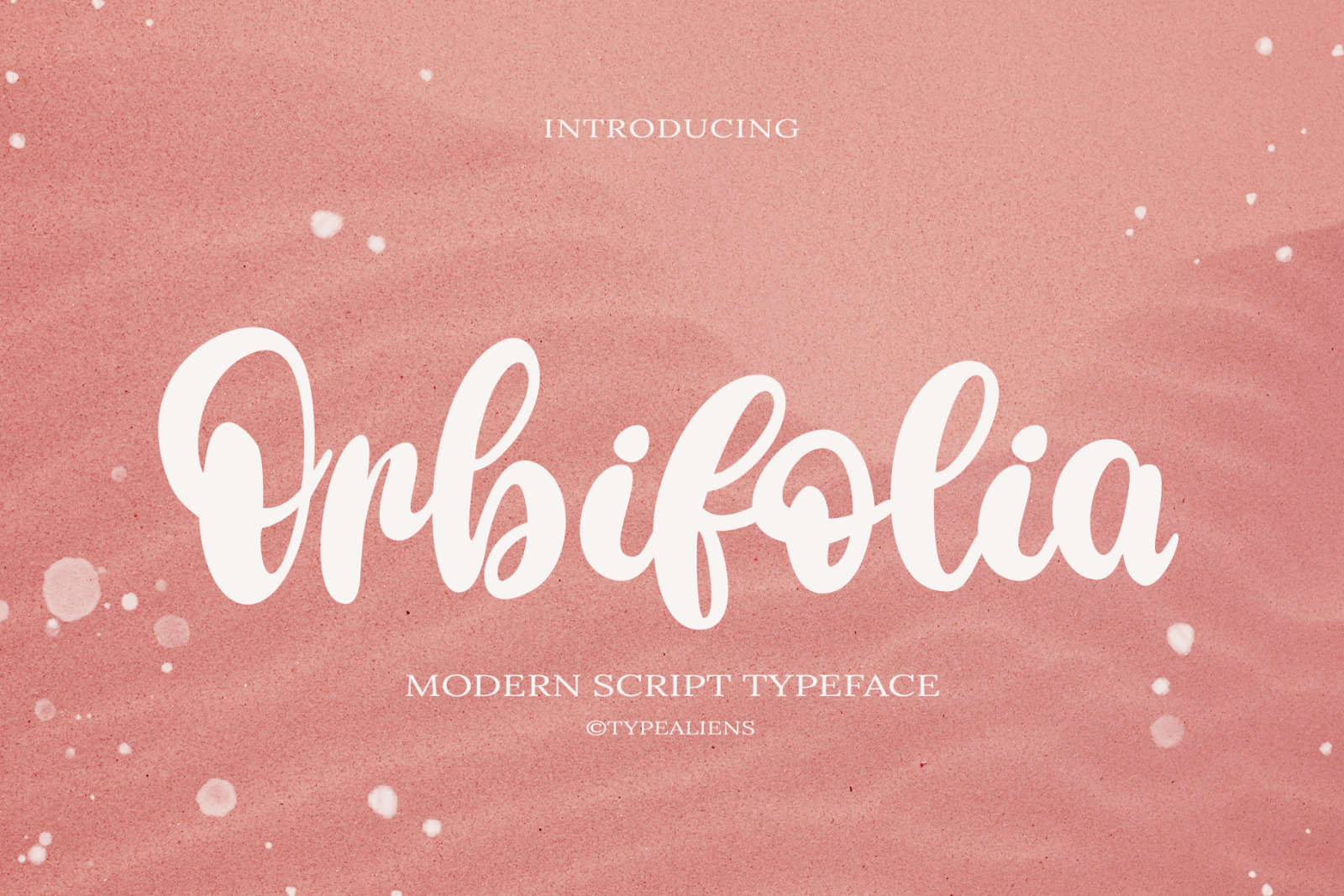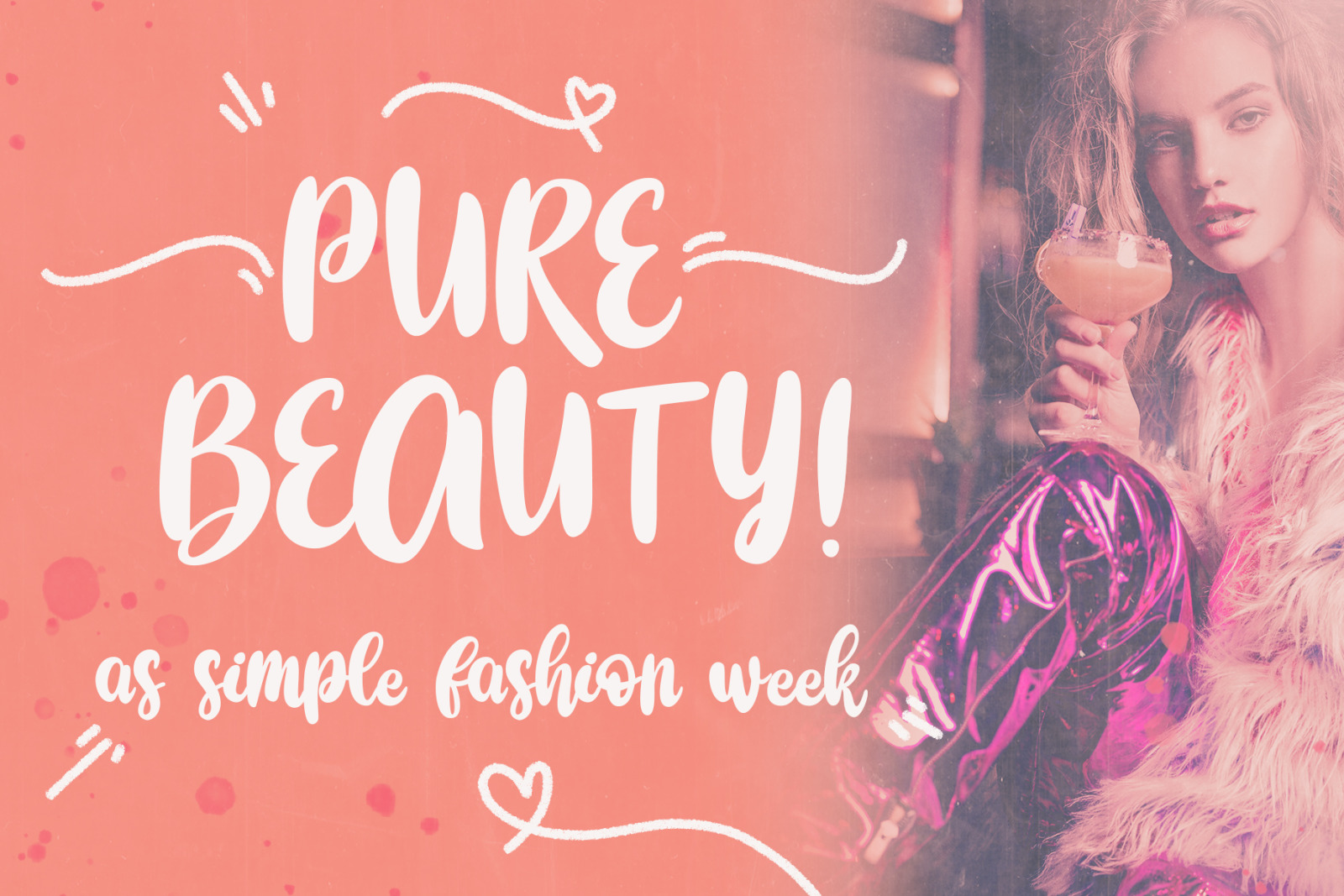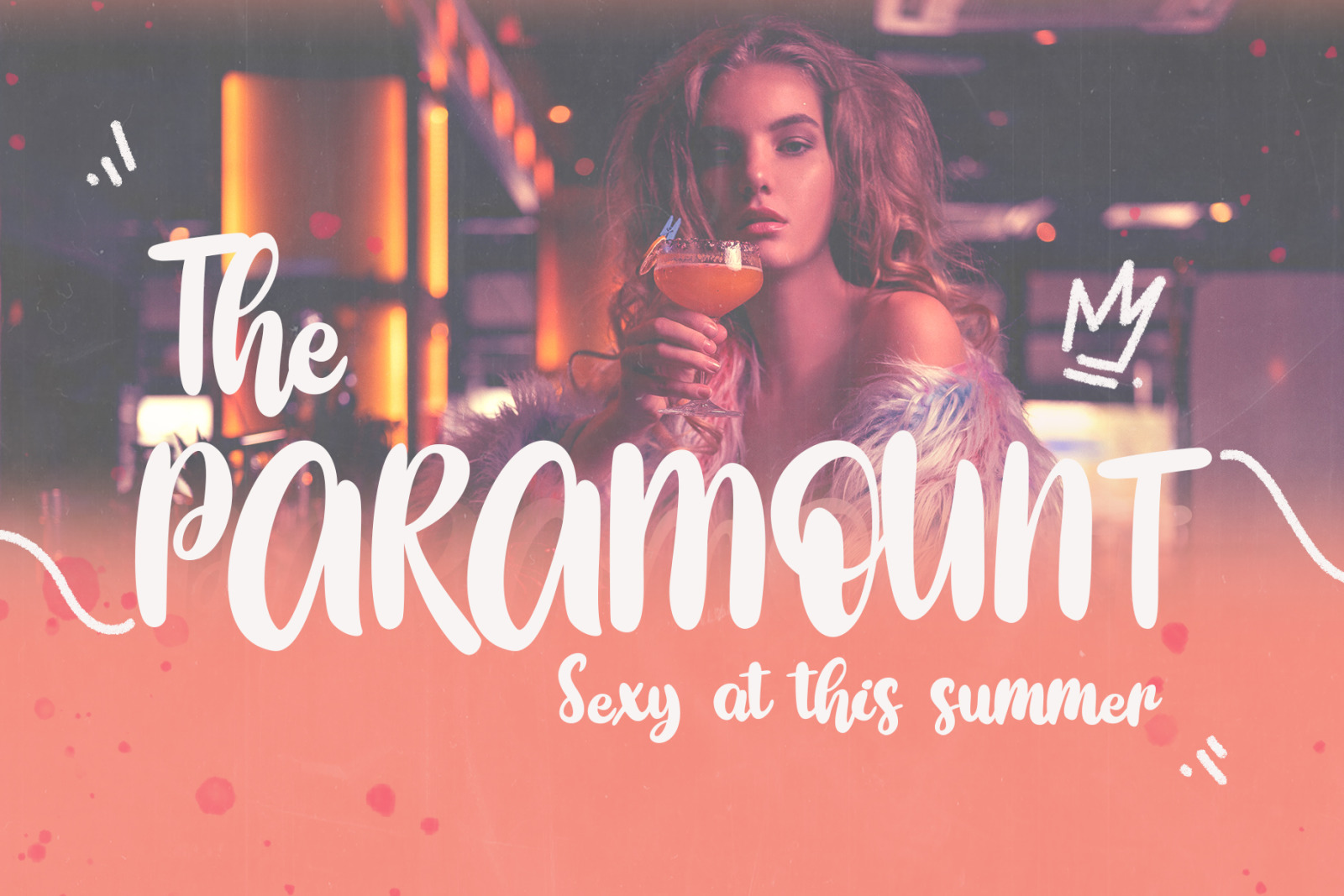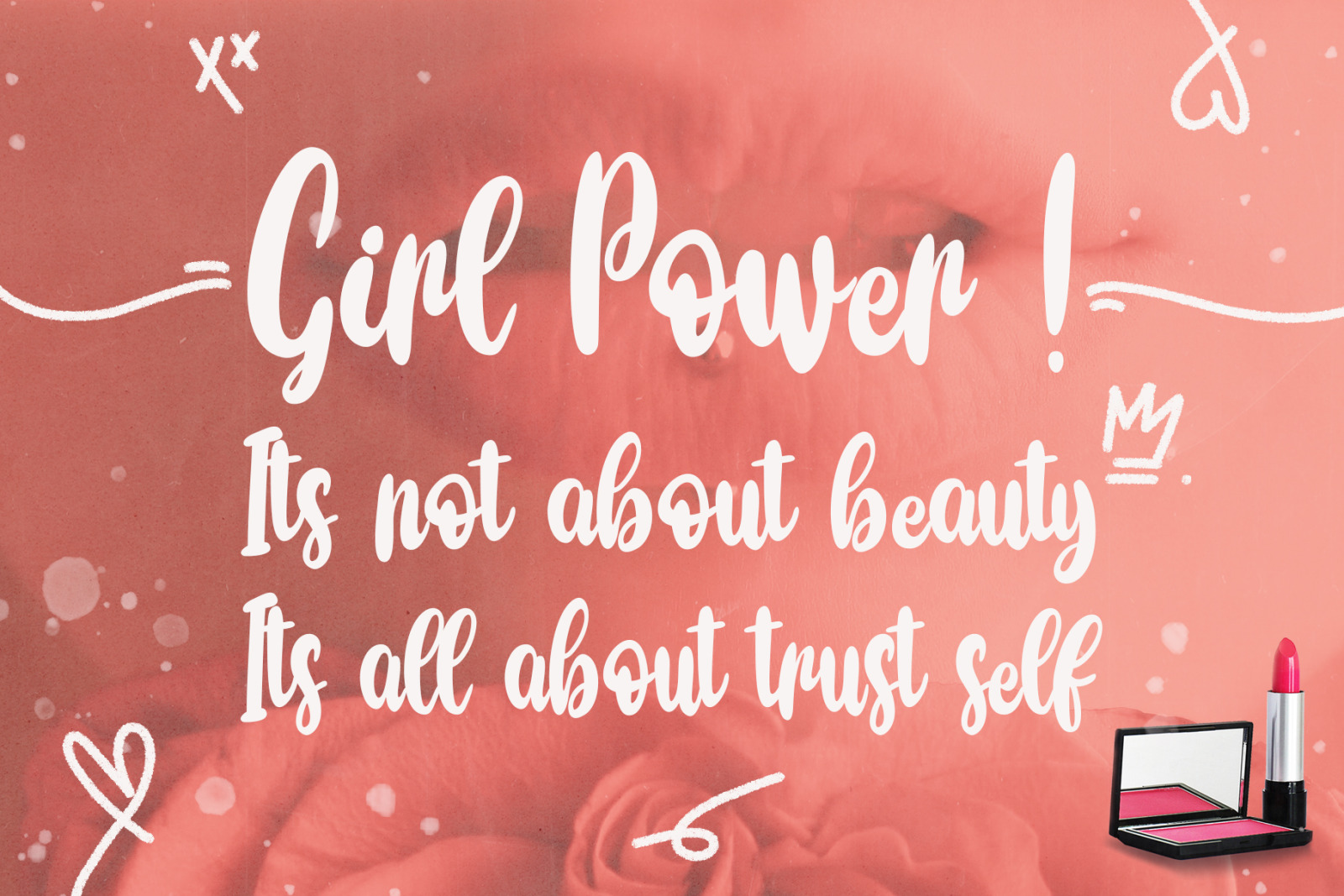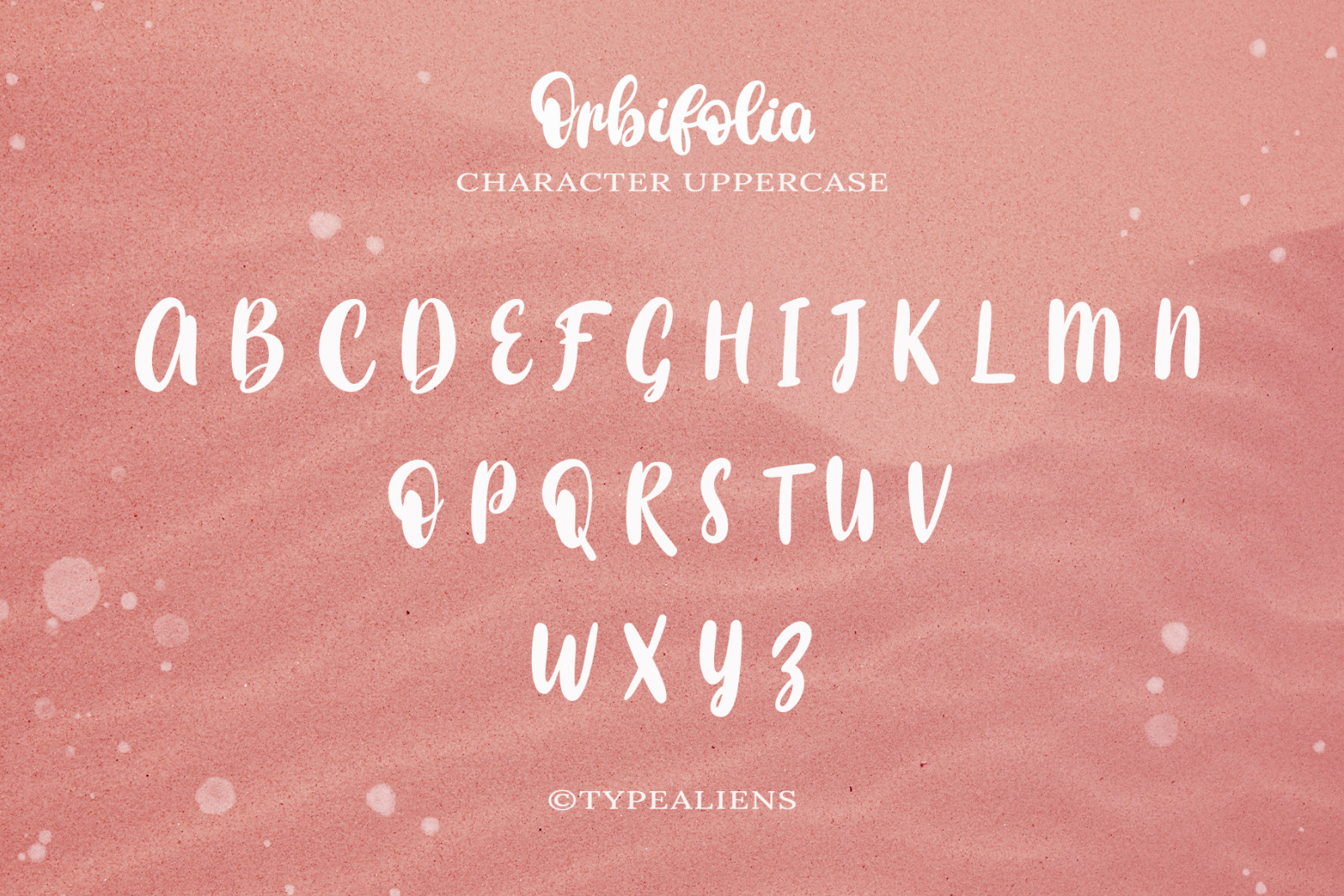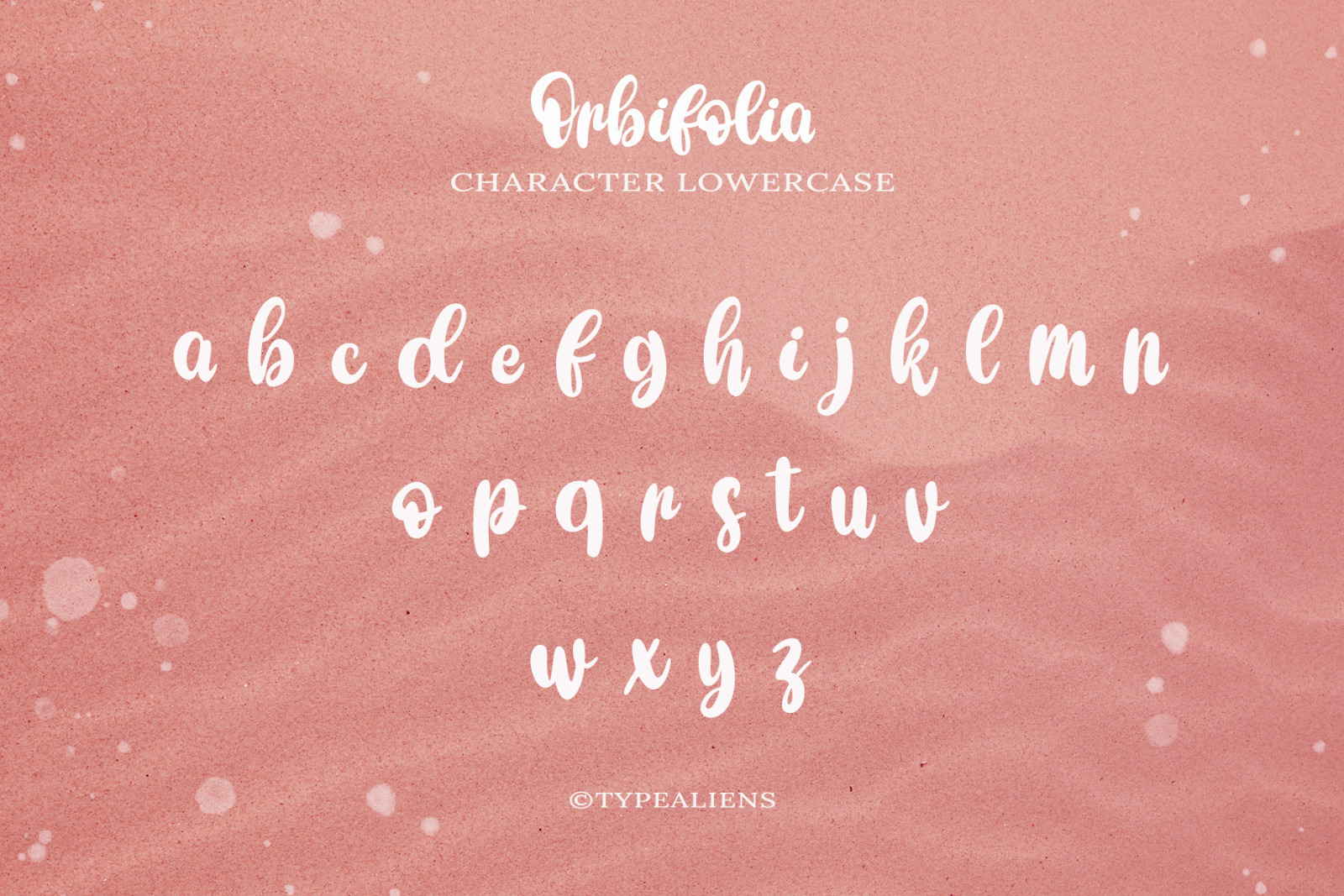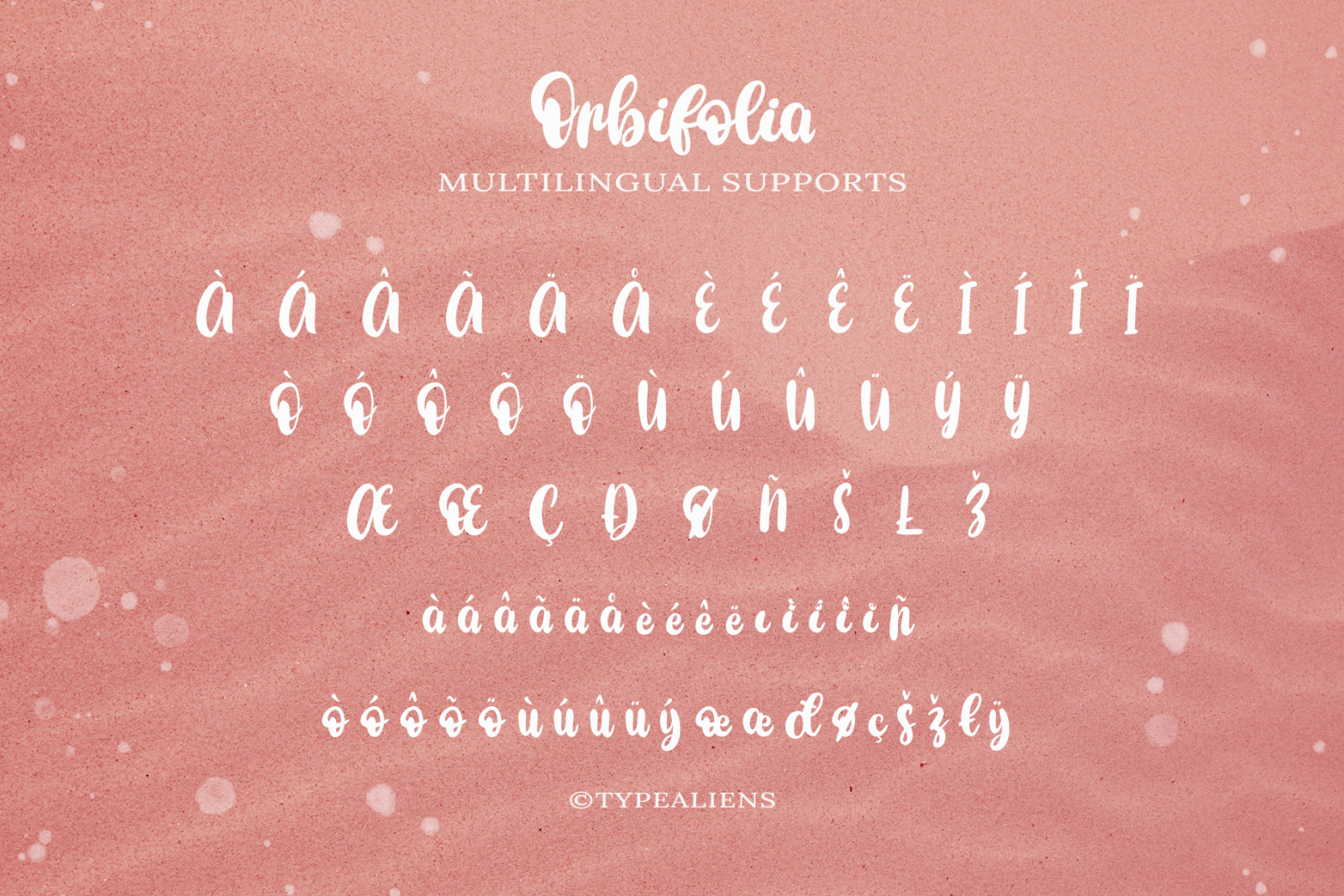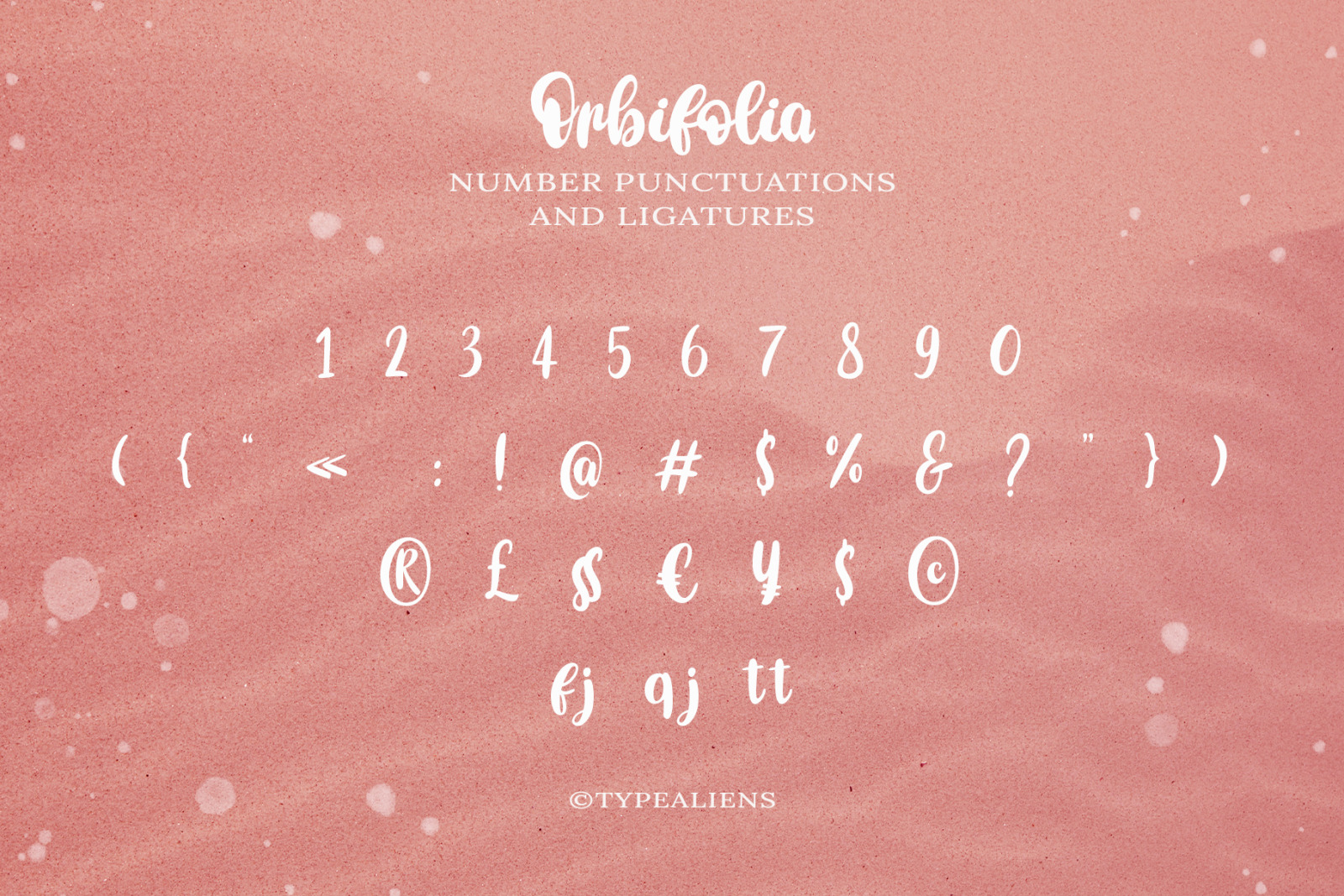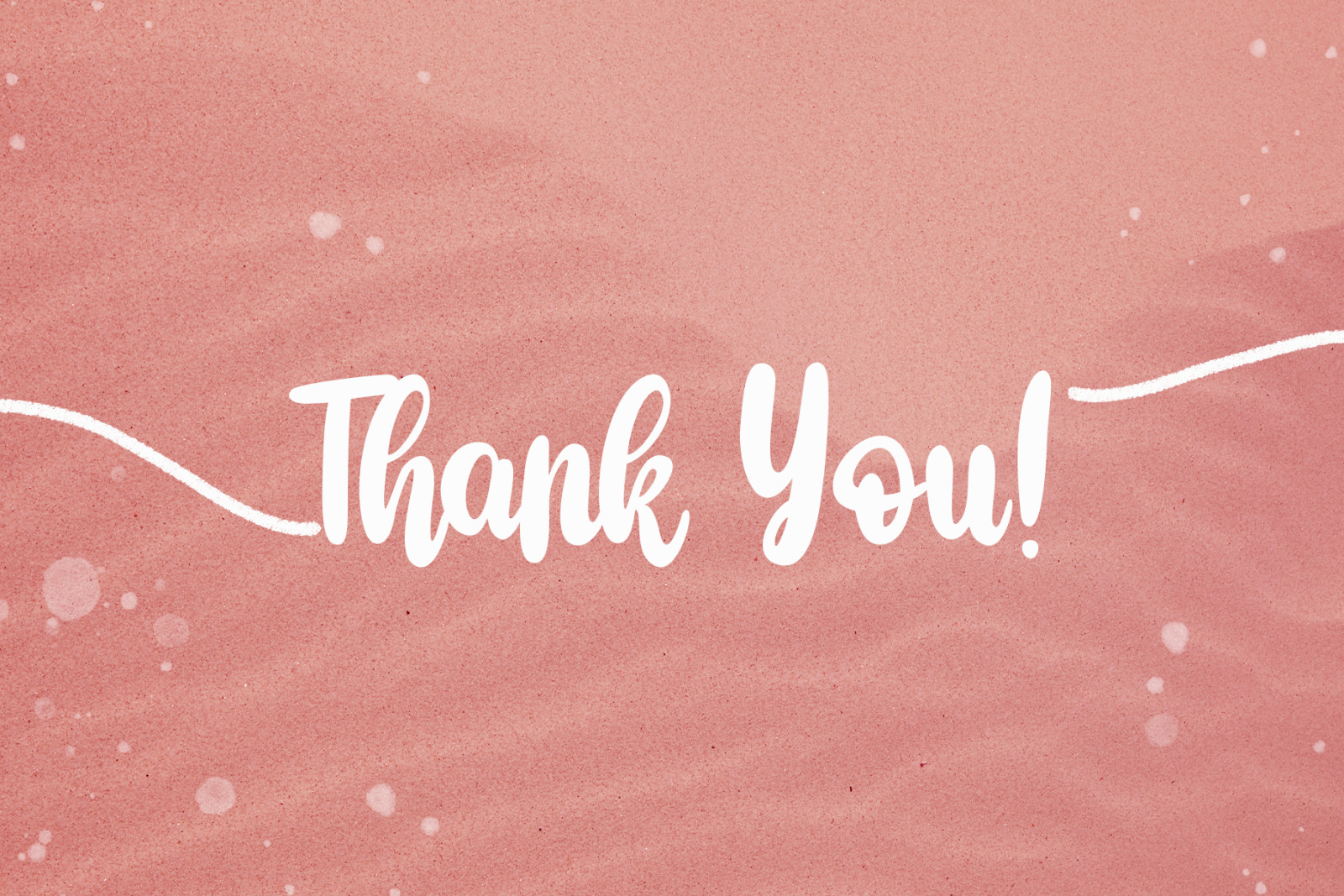
Orbifolia Font
ORBIFOLIA is is a script font based on the basic modern calligraphy brush. This beautiful and unique font is perfect for creating logos in creative product design needs or as branding for a company. Of course, with a modern style it will fit perfectly with the design or brand of food, drink or for the social media needs of your product.